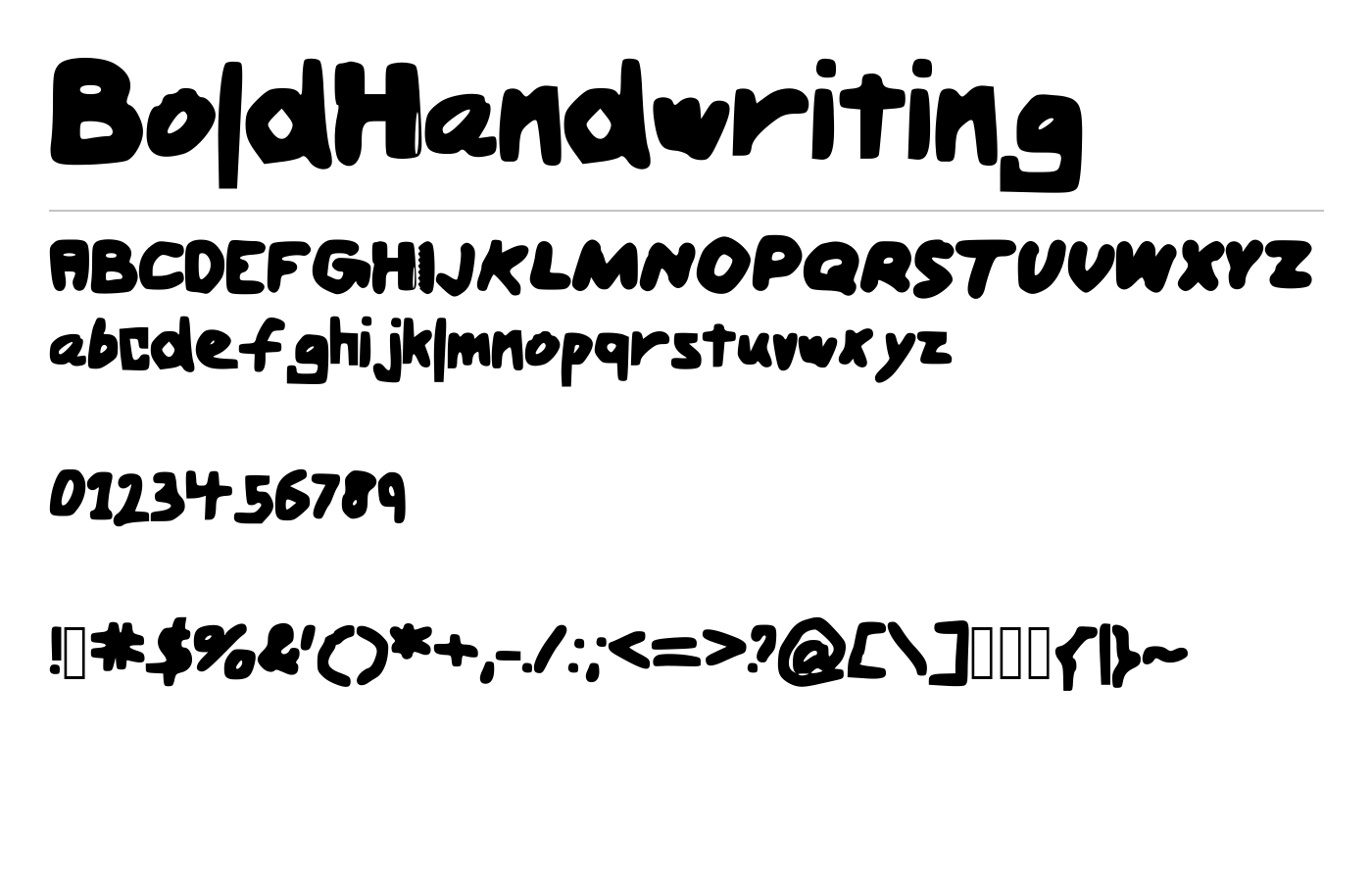
BoldHandwriting is a playful, bold sans-serif font with a lively, hand-drawn feel. Its thick, irregular strokes and high x-height give it a casual, energetic personality, making it ideal for creative projects, informal branding, and fun headlines where a friendly and approachable tone is desired.
BoldHandwriting Font
About BoldHandwriting Font